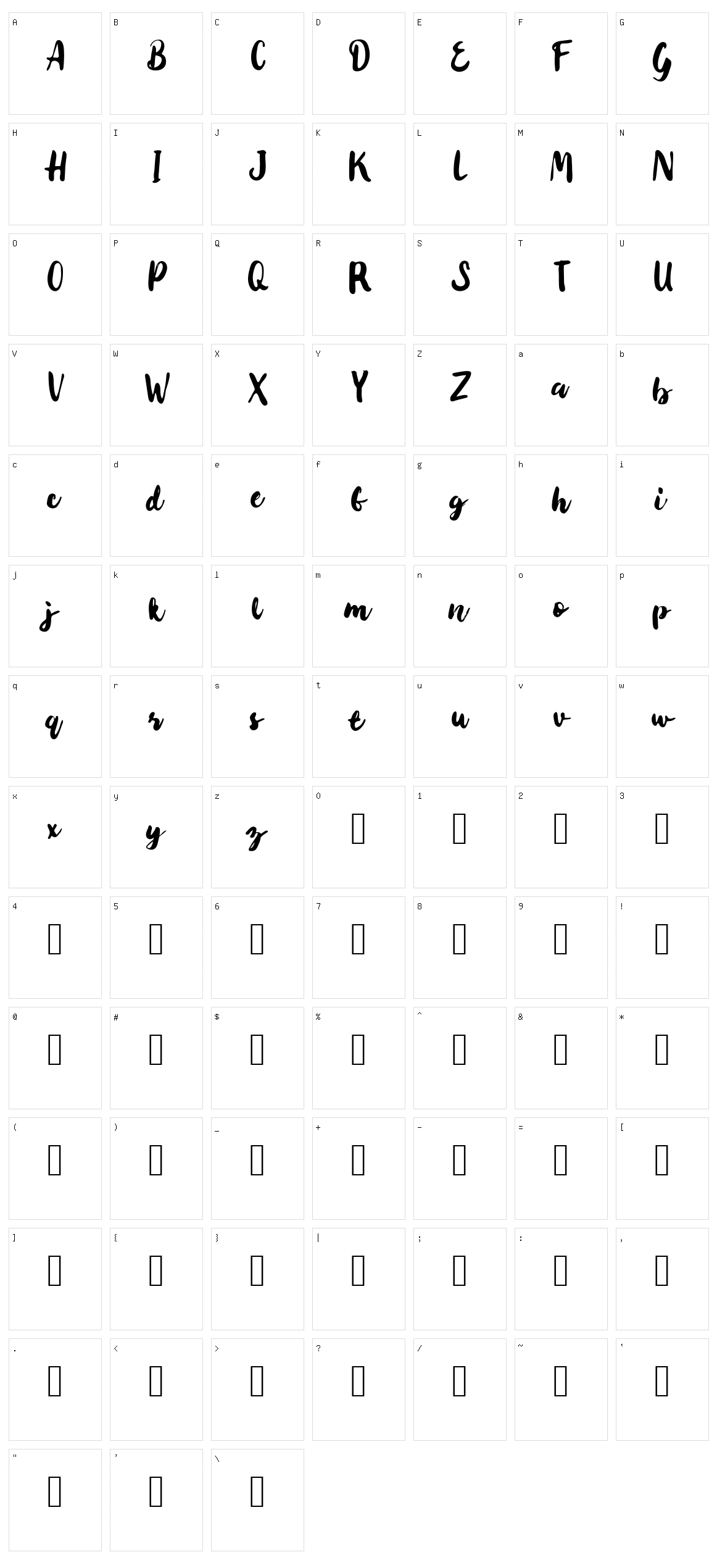
The free font Tabio is carefully designed by kokostd, showcasing a thoughtful balance of creativity and usability and falls under the Script font style. When you download the ZIP file, it contains only 16.61 KB of font files, making it lightweight and quick to download. Please review the license details below to understand permitted usage and distribution rights. If license information is not available, we recommend using this font for personal projects only or contacting the author directly for commercial usage permissions.